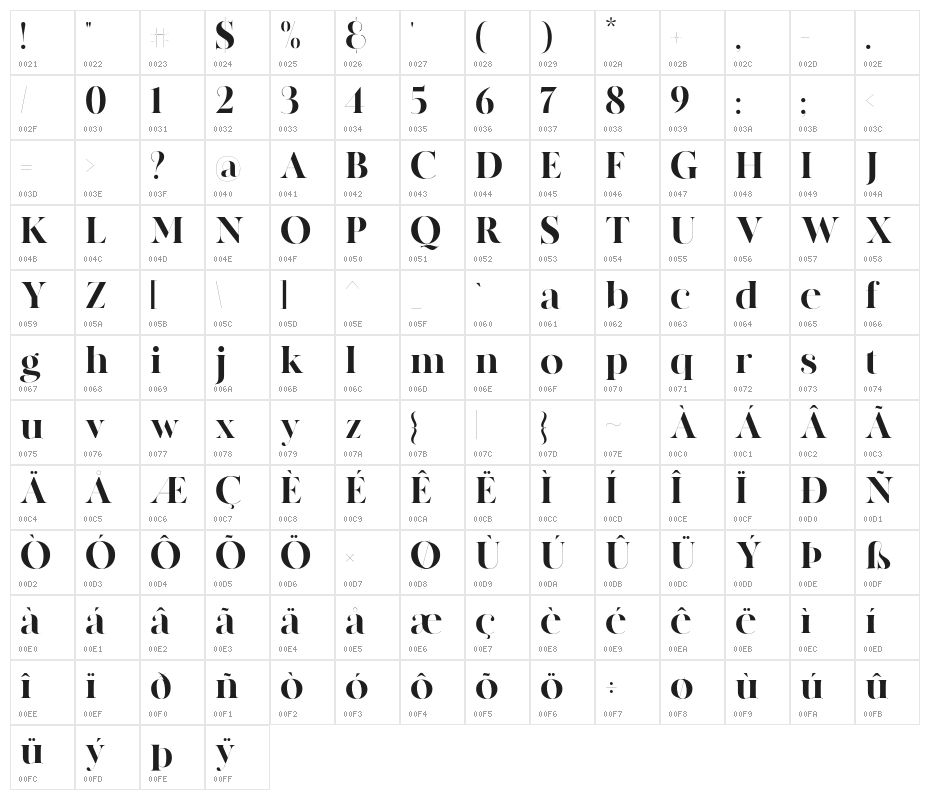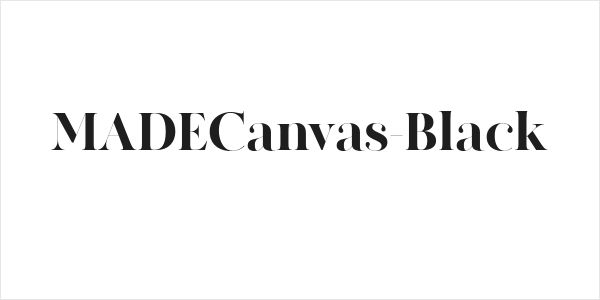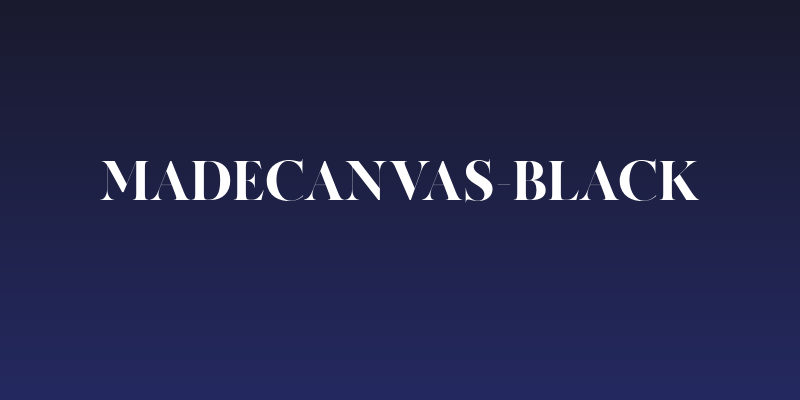
MADECanvas-Black Font
MADECanvas-Black Description
This font features a bold and striking design with high contrast between thick and thin strokes, giving it a dramatic and elegant appearance. The uppercase letters are particularly prominent, with sharp serifs and a modern flair. The lowercase letters maintain a consistent style, providing a cohesive look across text. Numbers and special characters are designed with the same attention to detail, ensuring readability and aesthetic appeal. The overall design is sophisticated, making it suitable for projects that require a touch of elegance and modernity.
Proposed ProjectsIdeal for luxury branding, fashion magazines, high-end product packaging, and elegant invitations.